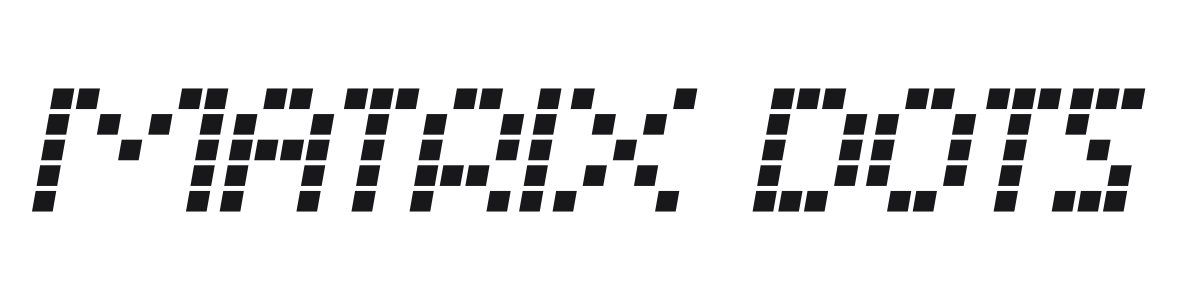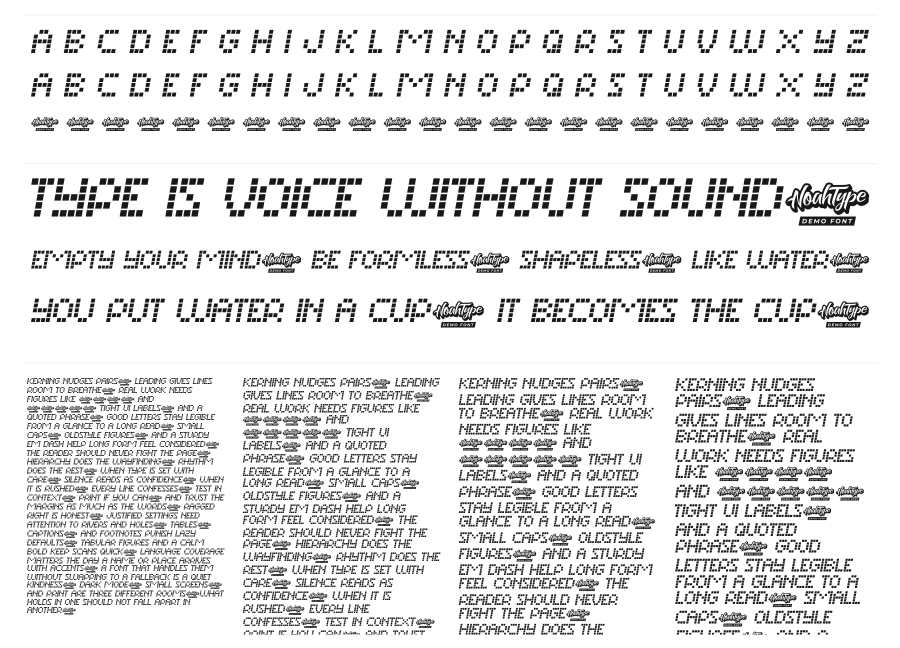
Matrix Dots
Matrix Dots is a bold dot-matrix display font built from a uniform grid of small squares, leaning into a sharp italic angle that makes it feel fast and kinetic. The construction references LED scoreboards, arcade cabinets, and early digital signage, landing somewhere between retro nostalgia and contemporary tech aesthetics. It works at large sizes where the dot structure reads clearly as a deliberate design choice.